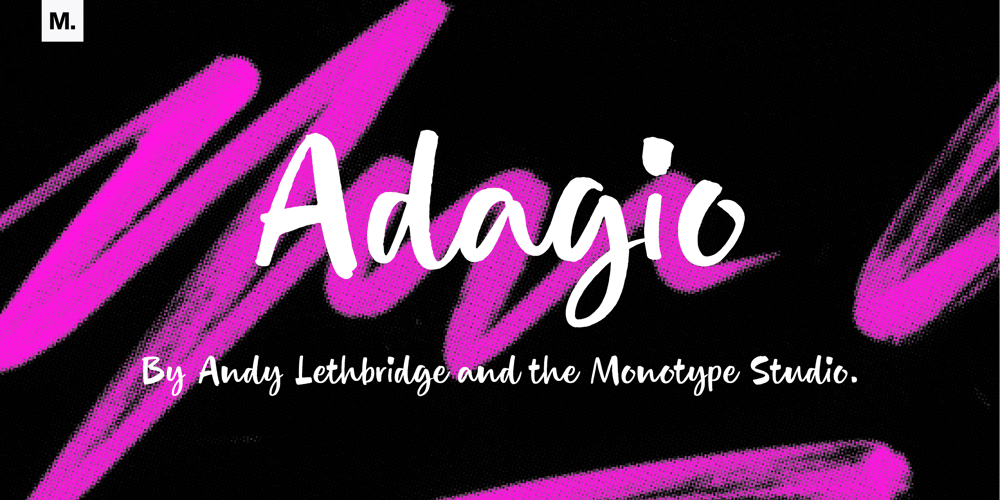
Adagio
Adagio font
Adagio Font Family was designed by Andrew Lethbridge and published by Monotype. Adagio contains 1 styles and family package options. Adagio is a spontaneous, casual kind of font but don’t be fooled into thinking just because it’s all uneven and painted that it’s a pushover. There’s a bold brush pen at the heart of the design as well as a full set of alternate lowercase characters if you’re looking for something extra.